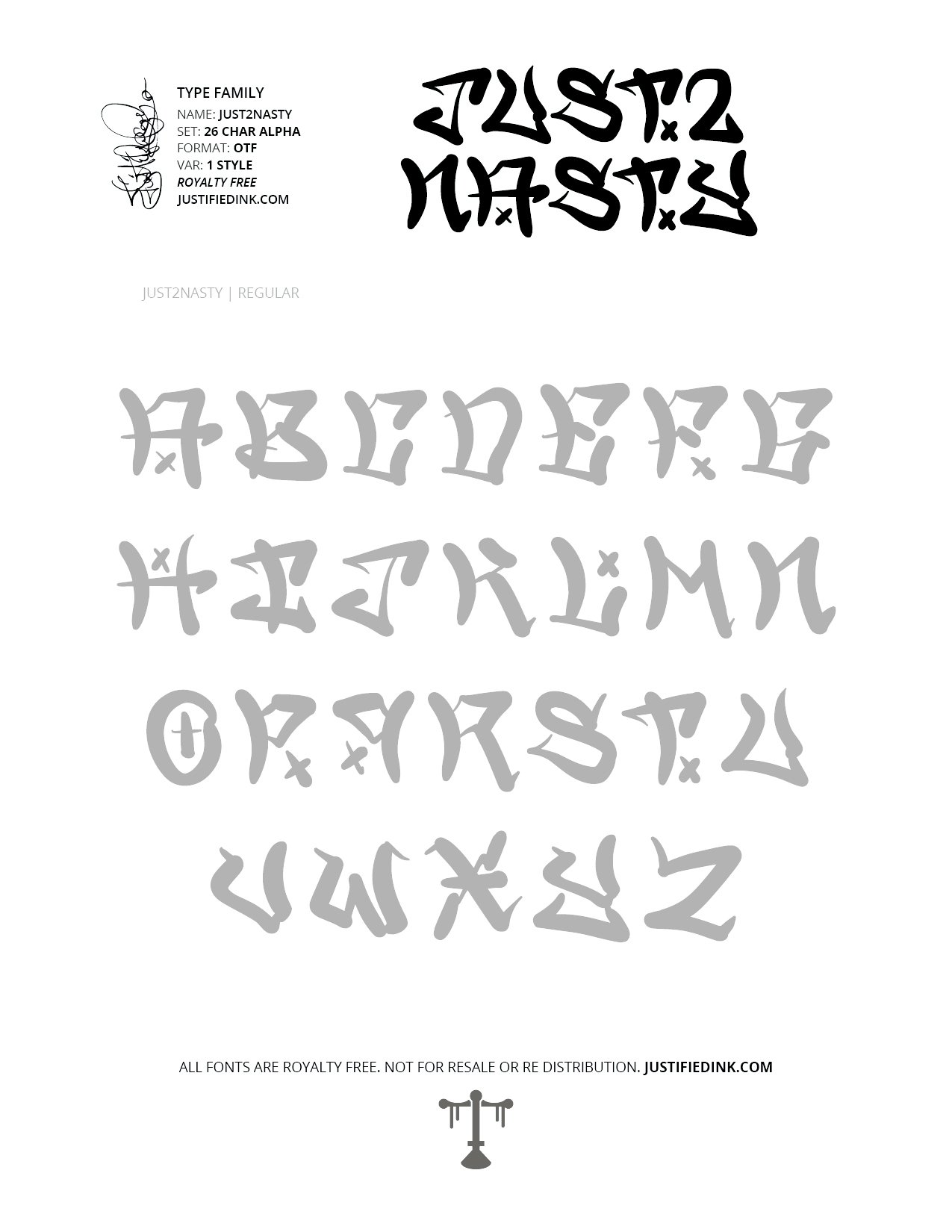
Just2nasty (1 style) - Custom Font by Justified Ink
NAME: Just2nasty
There's nothing that can be said for Just2nasty. Either you love it or more likely you hate it -- and there is no in between.
This font is part of the collection by Justified Ink, called Blackletter III. After 15+ years creating, I began to focus on building personal libraries of my work. Blackletter III is yet another amazing collection of 30 handmade fonts. Building off of the work done to create Blackletter II, this collection is specialized where it was created digitally. This features many classic styles such as gothic, fraktur, beneventan, and uncial. Additionally, this collection contains several other styles drawn from graffiti, hiphop, and indie type styles. It comes in a full set of 26 char alpha. Each font family has variations in styles and/or non-alpha chars.